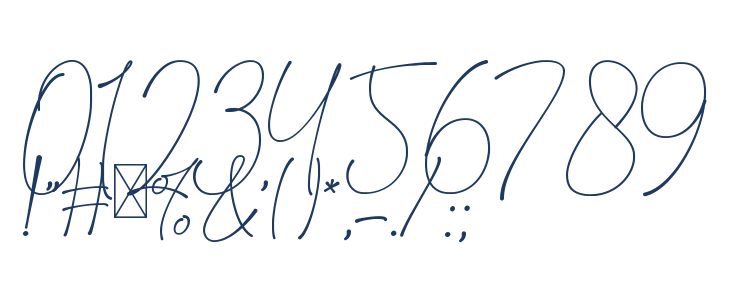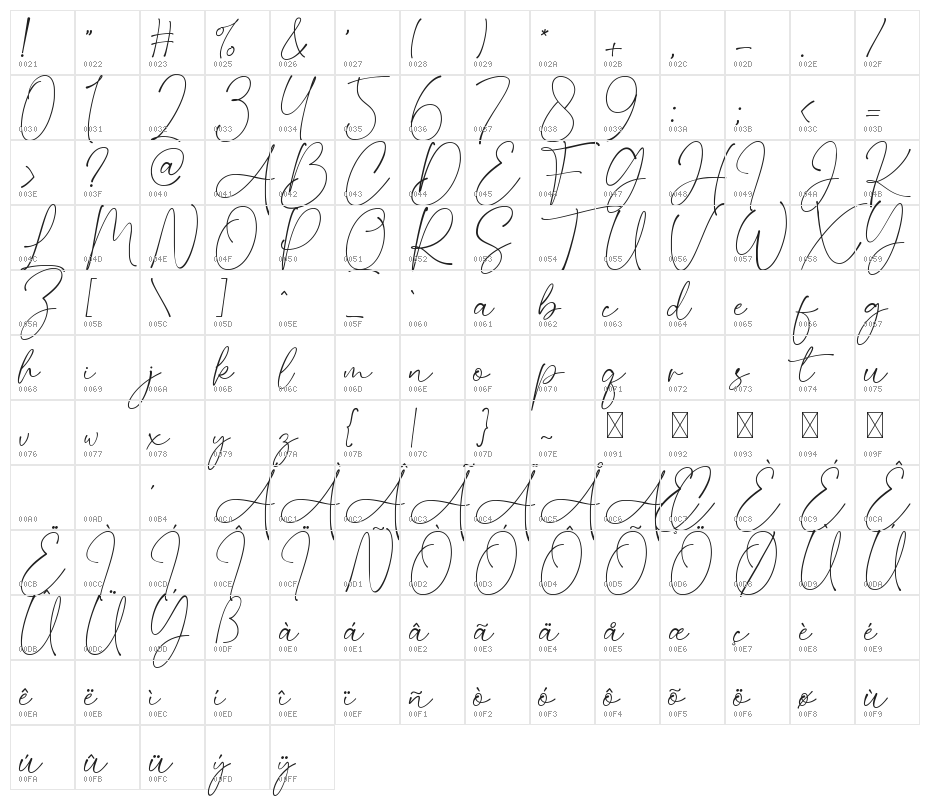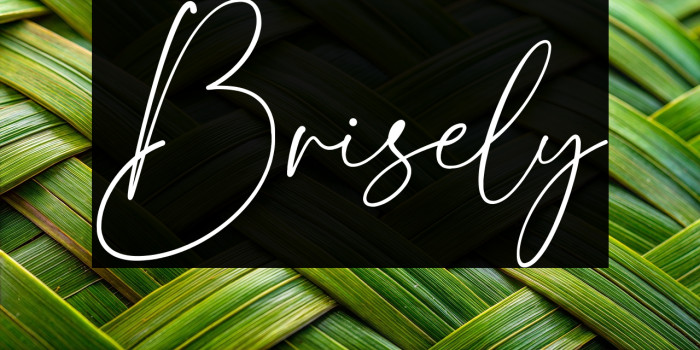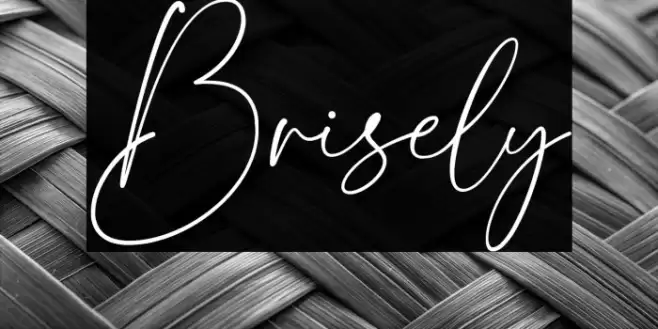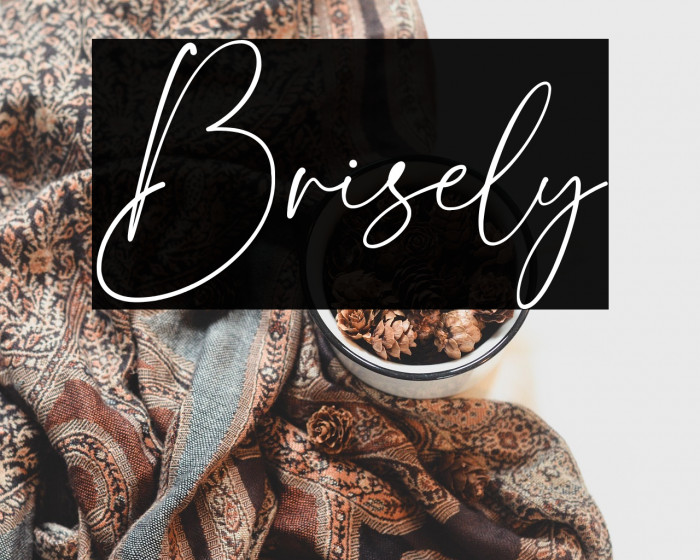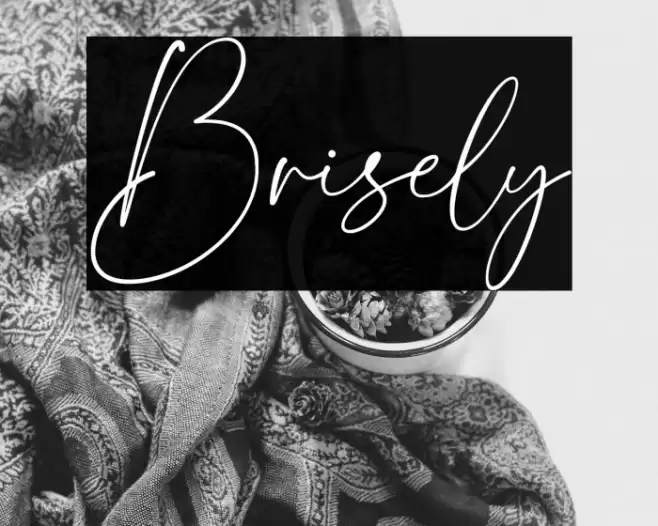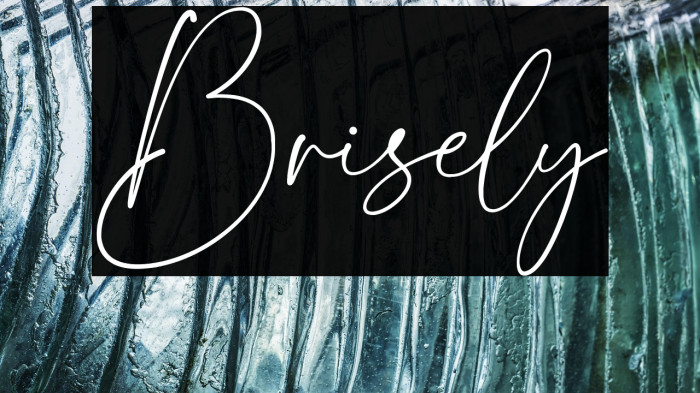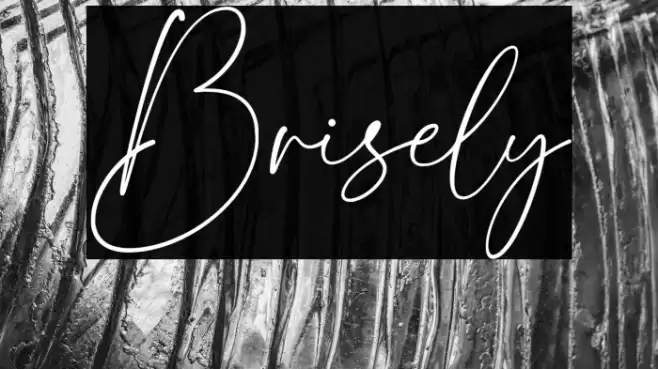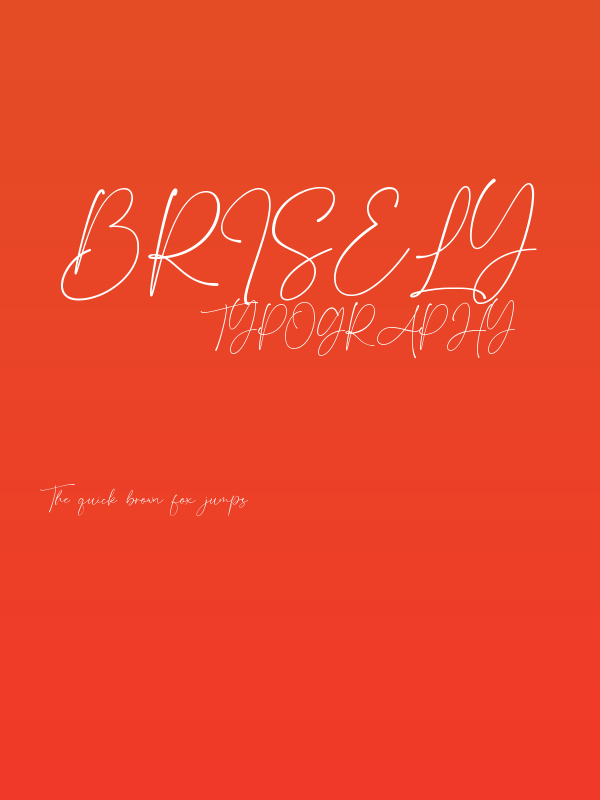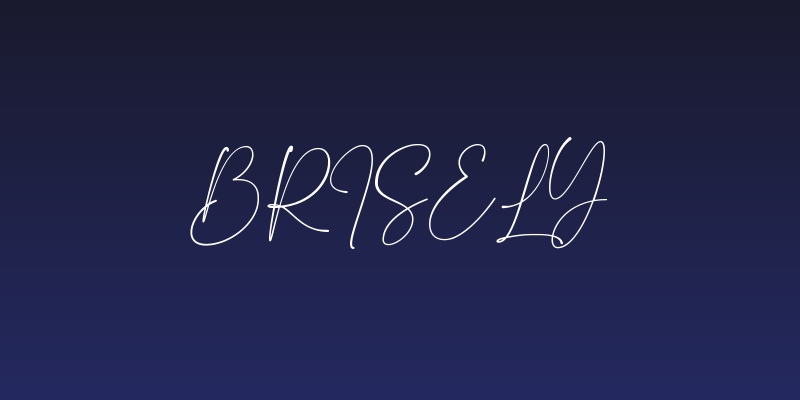
Brisely Font
Brisely Description
This font features an elegant and flowing script style, characterized by its smooth, continuous strokes and a handwritten appearance. The uppercase letters are tall and slender, with a slight slant that adds a dynamic feel. The lowercase letters are more rounded and connected, enhancing the cursive look. The numerals follow the same flowing style, maintaining consistency throughout. Special characters are integrated seamlessly, complementing the overall aesthetic. This font exudes a sense of sophistication and grace, making it suitable for projects that require a personal touch.
| Proposed Projects | Ideal for wedding invitations, greeting cards, personal branding, and elegant packaging designs. |